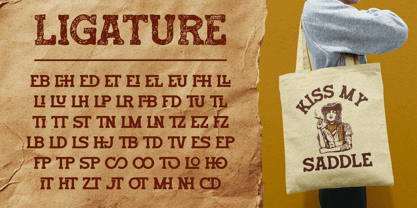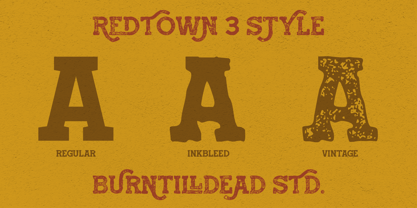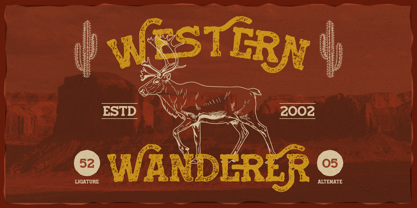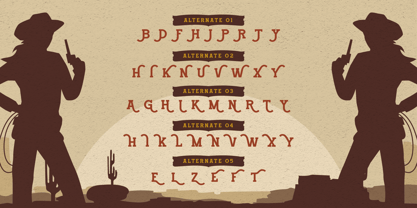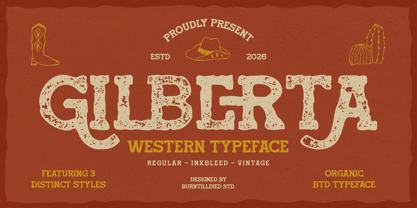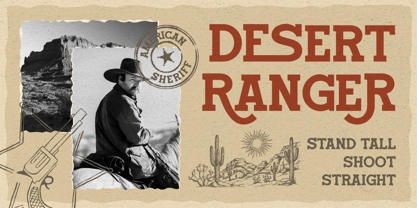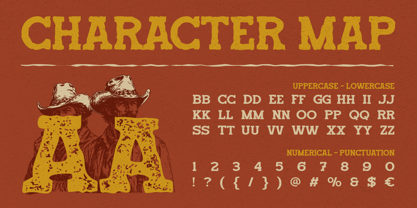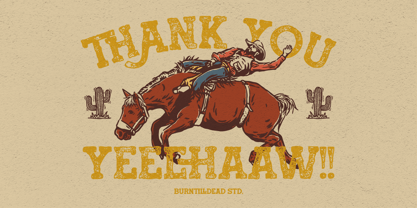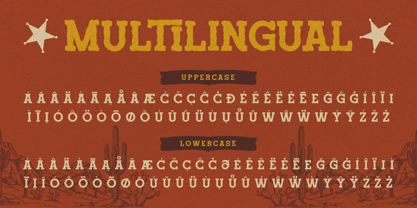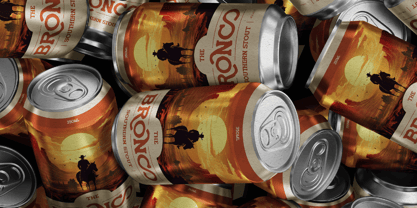
Gilberta
by Burntilldead
Gilberta is a bold western typeface inspired by the spirit of the wild frontier. With its rugged shapes, textured details, and handcrafted feel, this font brings an authentic vintage cowboy vibe into your designs.
Designed to capture the essence of old western signage, saloon posters, and desert adventures, Gilberta comes with 3 distinct styles: Regular, Inkbleed, and Vintage. Each style adds its own personality—from clean bold lettering to rough ink textures that feel raw and organic.
Perfect for creating strong, eye-catching typography, Gilberta works beautifully for branding, posters, packaging, logos, and anything that needs a touch of western attitude and nostalgic charm.
Whether you're designing a whiskey label, rodeo poster, or rustic logo, Gilberta delivers a powerful and timeless look.
Features: A - Z set (Uppercase & Lowercase), Number, Punctuation, Alternate, Ligature, Multilingual